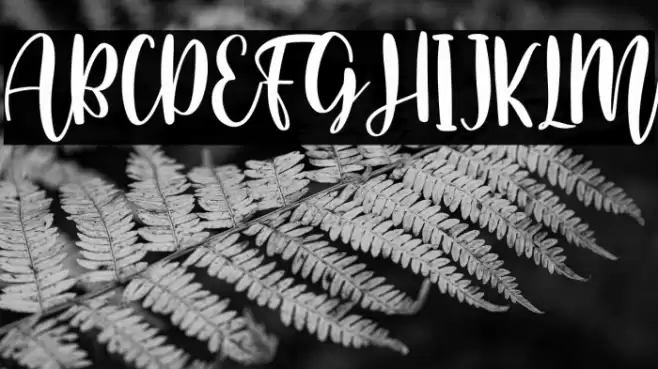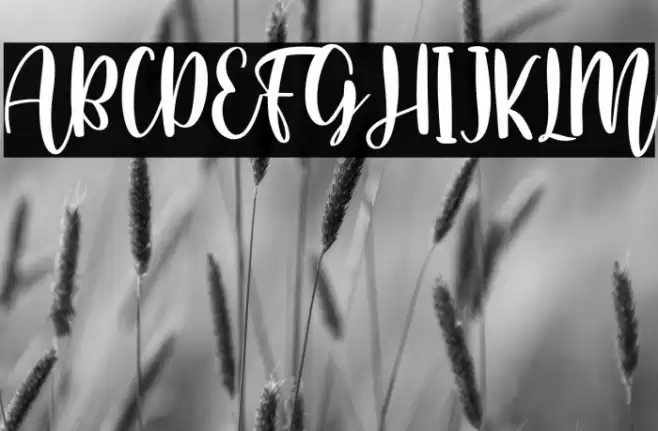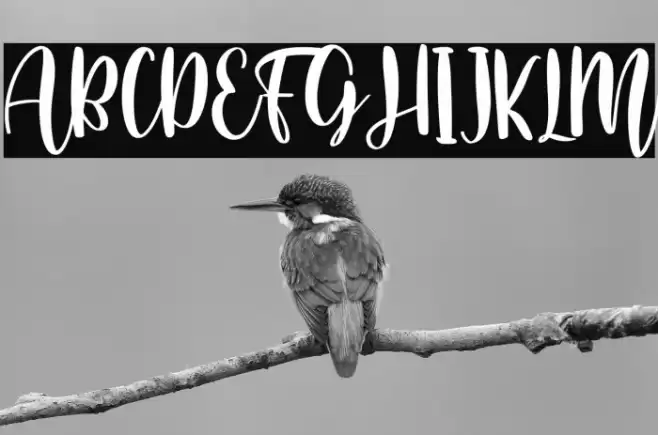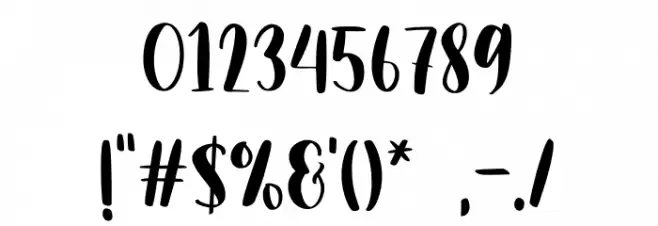
Home Crafts Font
Home Crafts Description
This font features a bold, flowing script style that exudes a sense of creativity and elegance. The characters are crafted with a smooth, brush-like appearance, giving them a hand-drawn feel. The uppercase letters are tall and expressive, while the lowercase letters maintain a consistent flow, enhancing readability. The numbers and special characters complement the overall design, maintaining the same artistic flair. This font is ideal for projects that require a personal touch, such as invitations, greeting cards, or branding materials.
A bold, flowing script font with a hand-drawn, brush-like appearance from Uncategorized fonts.
- Font: Home Crafts
- Proposed Projects: Ideal for invitations, greeting cards, branding, and creative projects.
- Use Case: Logos, Headlines, Invitations